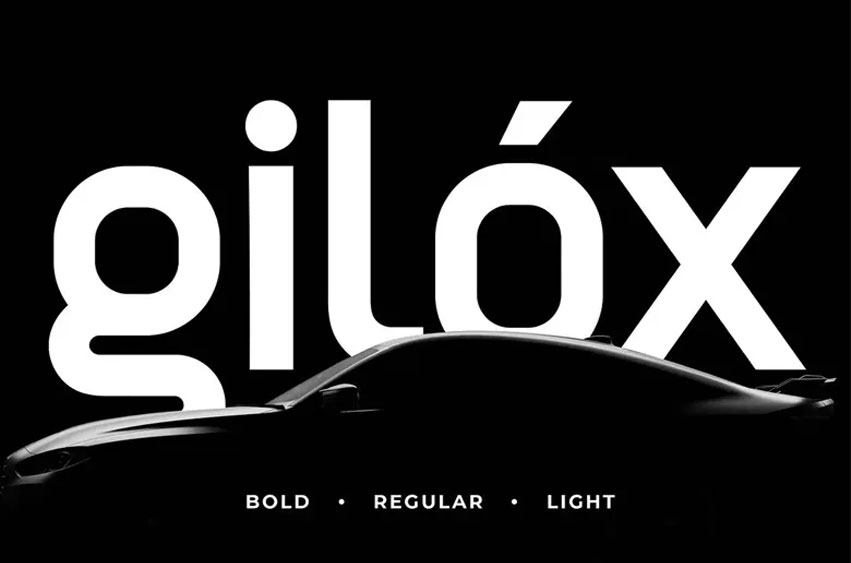
Gilox Font is a modern sans-serif typeface for print and digital designs. 99 designs created it. It features smooth curves, clean geometry, and confident letterforms. The family has multiple refined weights of bold, regular, and light.
Designers use it to design corporate logos with a tech look, magazine layouts, and product packaging. It supports over 198 languages, making it great for both personal and commercial projects.
Gilox blends precision and readability in a professional style.